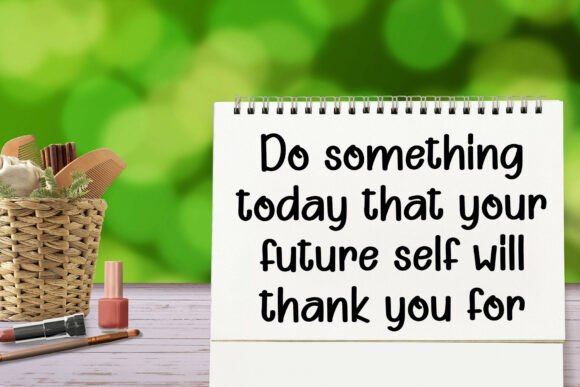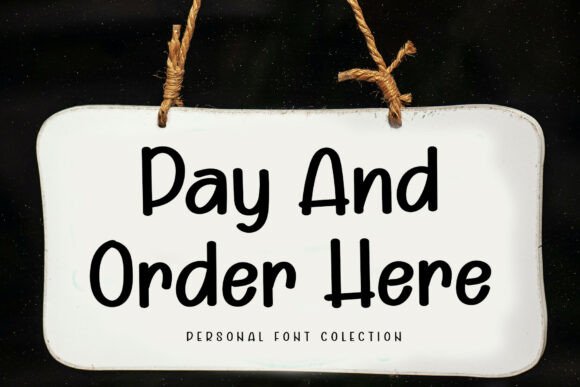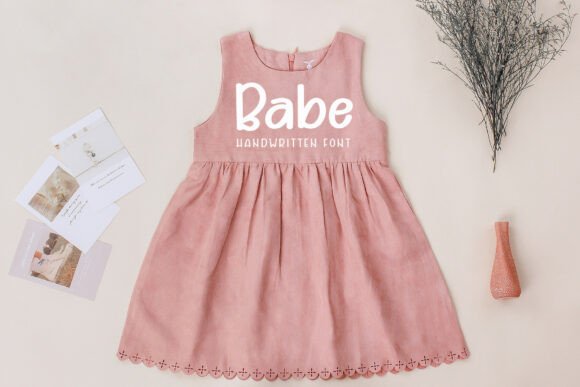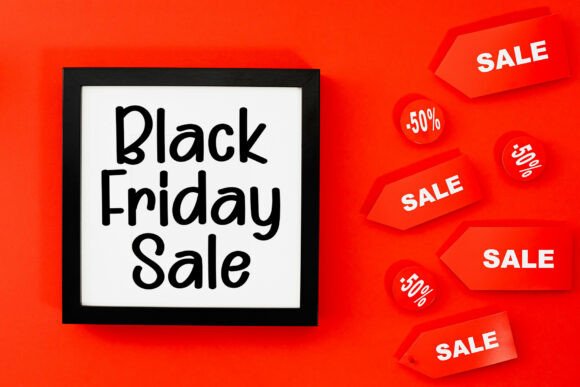
The Boho Font: A Beautiful Handwritten Touch for Your Designs
I’ll never forget the time I was working on a wedding invitation project, and my client asked for a font that would make their special day feel truly unique and personal. I scoured the internet, tried countless fonts, but nothing seemed quite right. That was until I stumbled upon the Boho font. With its beautiful handwritten touch, varied baseline, and carefully crafted design, it was love at first sight! ✨
An Honest Review of Boho Font
- ✨ Beautifully crafted handwritten design that adds a personal touch to any project
- ✅ Perfect for wedding invitations, greeting cards, billboards, logos, business cards, and more
- 🎉 Features a varied baseline that creates a natural, organic feel
- 💻 Carefully designed to ensure spectacular creations and a realistic look
While Boho font is a stunning addition to any design project, there are a few things to keep in mind: 🤔
- ⚠️ May require some adjustments to work well with other fonts or design elements
- ⚠️ Some users may find the varied baseline takes getting used to
The Story Behind Boho Font
Boho font was designed with the goal of creating a beautiful, handwritten font that would add a personal touch to any design project. The designer, inspired by the bohemian lifestyle and a love of handwritten letters, carefully crafted each letterform to create a unique and realistic look. The result is a font that’s perfect for anyone looking to add a little extra something to their designs. 🌟
Q: What is Boho font?
A: Boho font is a beautiful handwritten font designed to add a personal touch to any design project.
Q: What can I use Boho font for?
A: Boho font is perfect for use on wedding invitations, greeting cards, billboards, logos, business cards, and any other design that requires a handwritten touch.
Q: Is Boho font easy to use?